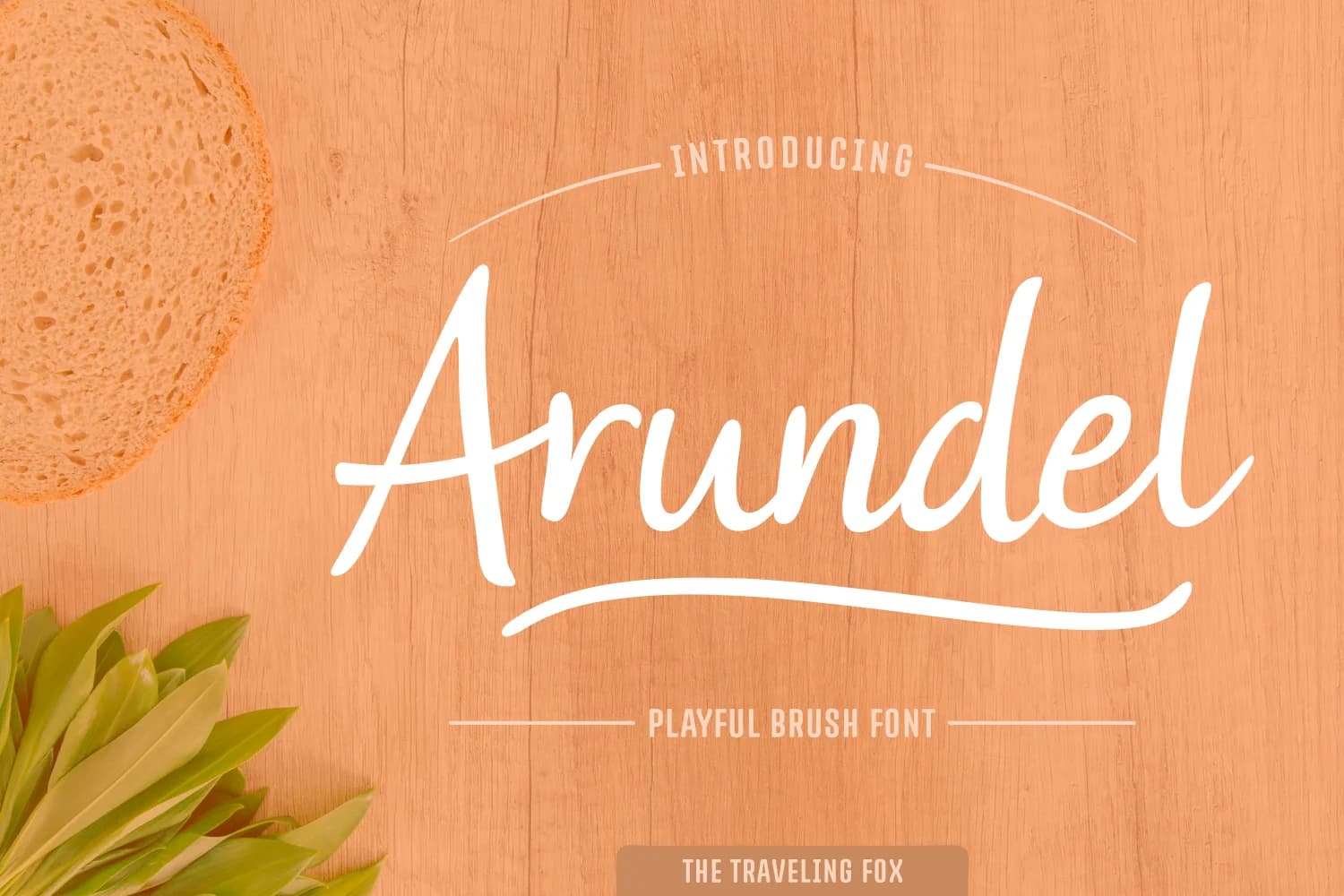
1 / 6About Arundel Font
Arundel by The Traveling Fox is a relaxed, expressive handwritten script that brings genuine personality to contemporary designs. The font's loose letterforms and natural flow make it particularly suited to wedding invitation suites, where its organic quality complements romantic styling and creates an authentic, handcrafted impression. Beyond celebrations, Arundel works beautifully for artisan product packaging, greeting card designs, and personalized stationery, anywhere a handmade aesthetic adds warmth and character to your brand voice. The script's versatility lies in its approachable personality, bridging casual and refined aesthetics seamlessly. It functions equally well as a display font for blog headers, social media graphics, and marketing materials, or paired with clean sans-serif typefaces for sophisticated visual contrast. Whether you're designing cosmetic labels for small-batch brands, creating custom journaling templates, developing branding for boutique fashion businesses, or producing DIY craft signage, Arundel adapts with ease across formal and casual applications alike. This handwritten script brings authentic character to digital projects, transforming everyday typography into distinctive visual communication that resonates with modern audiences. The casual yet intentional aesthetic appeals to creators seeking genuine personality over sterile perfection. Add Arundel to your Creative Fabrica collection and begin using this handwritten script across your projects.
- Elegant, Flowing, Arundel
Arundel Font is a script font that shines as a display or heading face. Pair it with a clean sans-serif or serif font for body text β the contrast creates a clear hierarchy while the two styles stay balanced and easy to read.